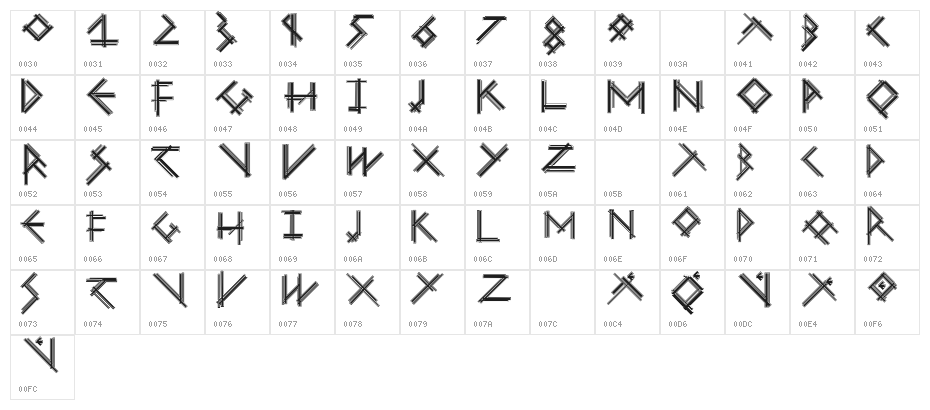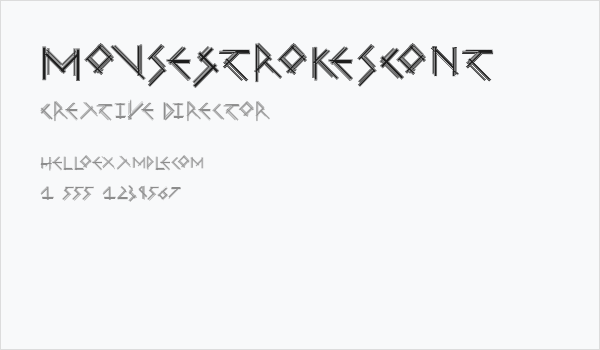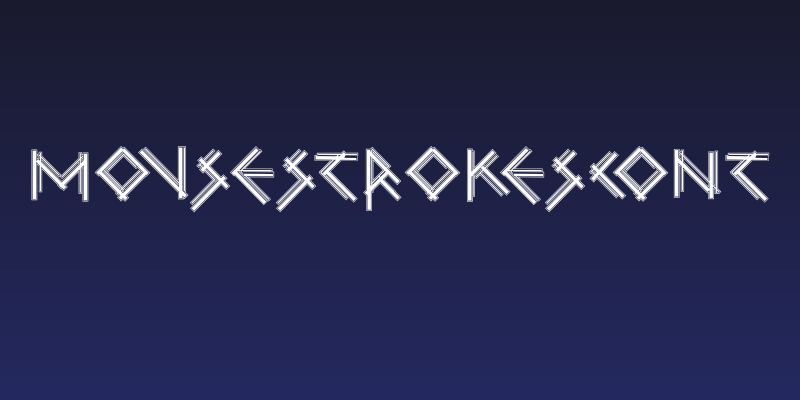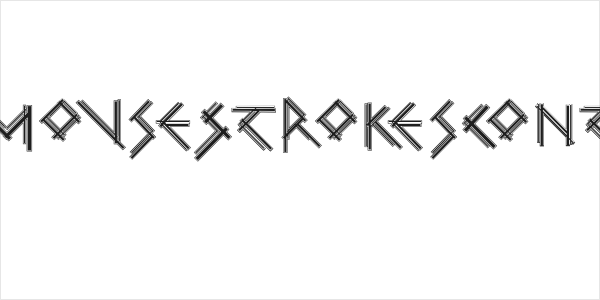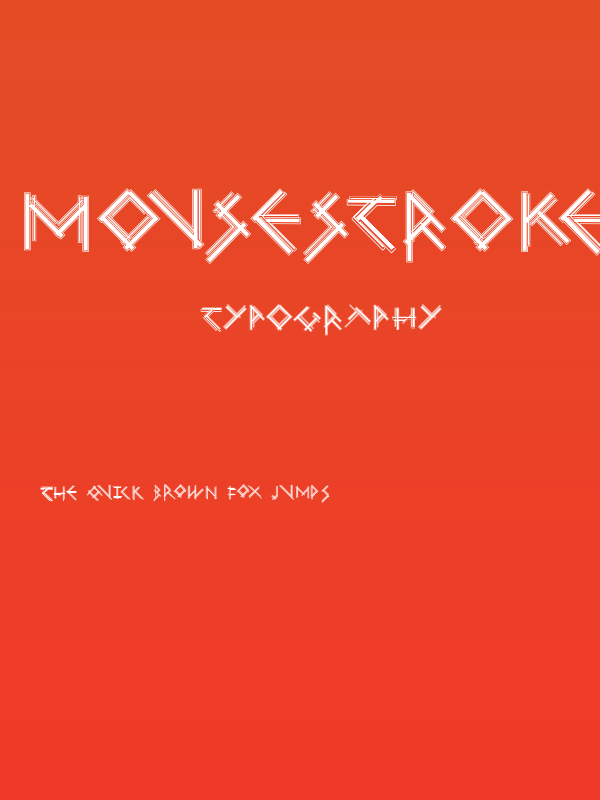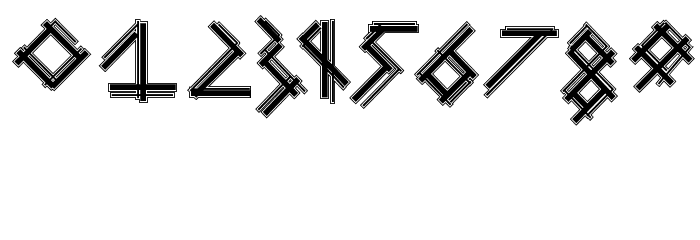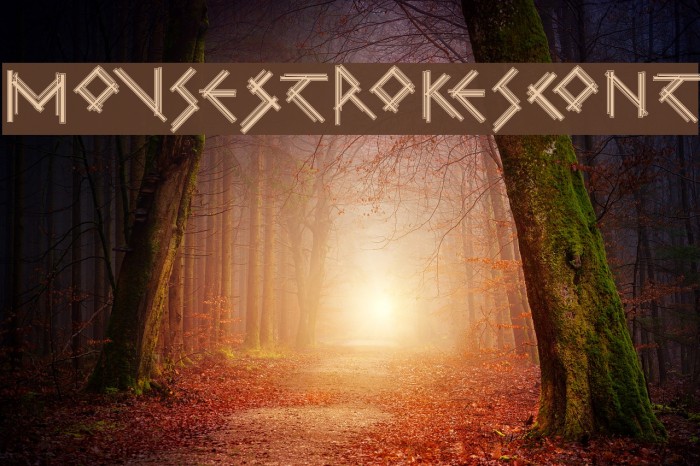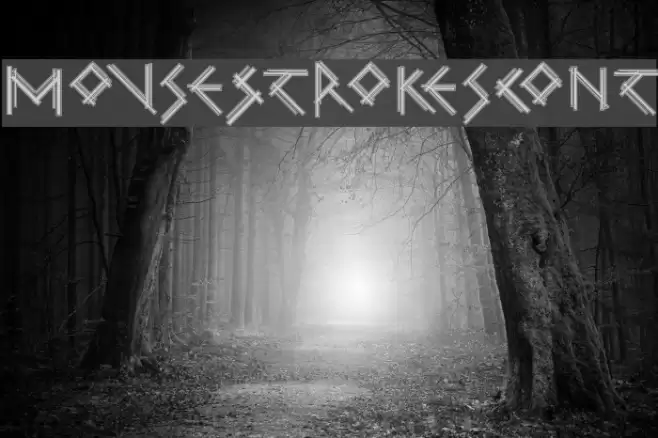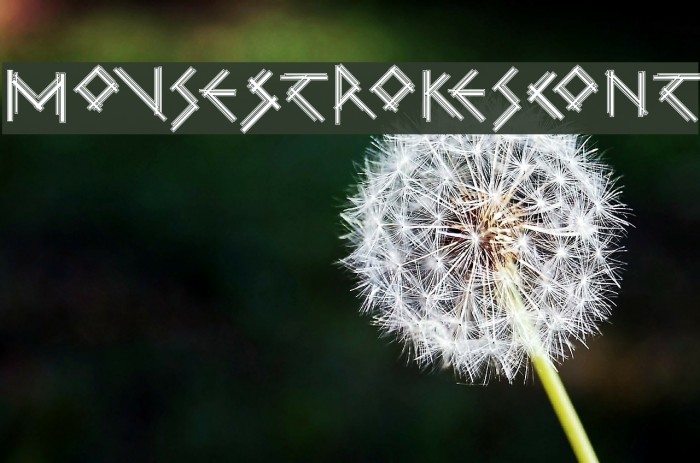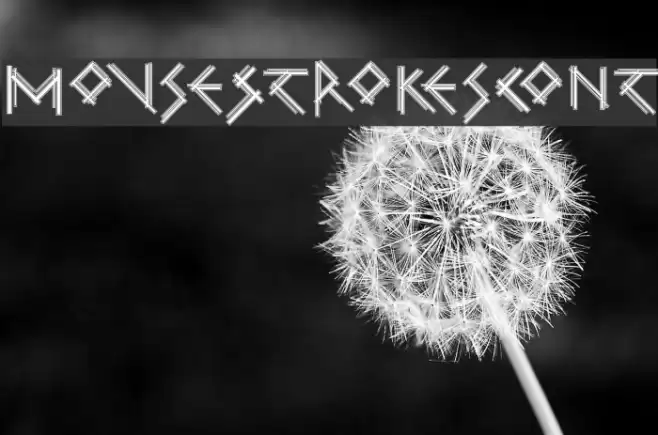
MouseStrokesCont Font
MouseStrokesCont Description
This font features a unique, geometric design with intersecting lines and sharp angles, creating a futuristic and abstract appearance. Each character is constructed with a series of strokes that overlap and intersect, giving it a complex and intricate look. The uppercase and lowercase letters maintain a consistent style, with the same angular and linear elements present throughout. Numbers and special characters follow the same design principles, ensuring uniformity across the entire set. The font's distinctive style makes it stand out, offering a modern and edgy aesthetic that is both eye-catching and memorable.
| Use Case | Logos, Headlines, Posters |
| Proposed Projects | Ideal for sci-fi themed projects, modern branding, digital artwork, and innovative product packaging. |